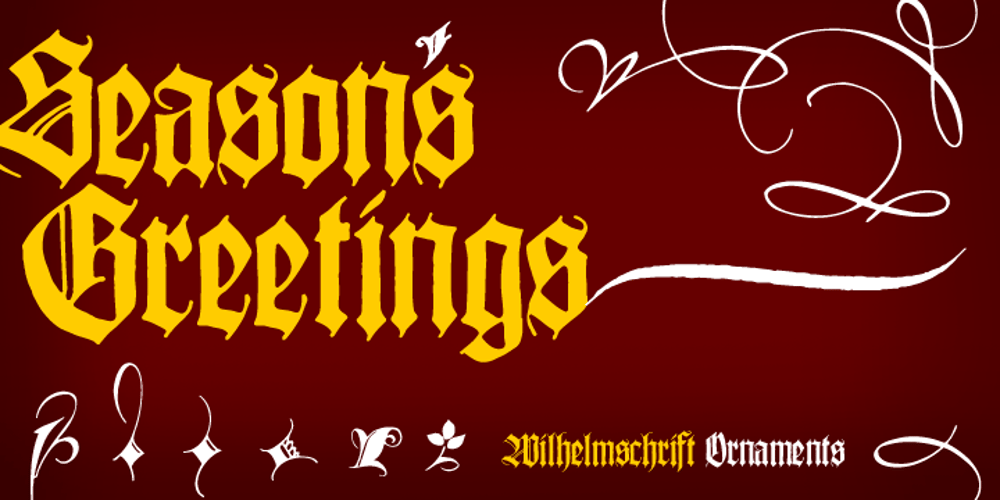
Wilhelmschrift Font Family was designed by Stephen Miggas, Rudolf Koch and published by Aerotype. Wilhelmschrift contains 3 styles and family package options. The 1927 Klingspor Foundry specimen book debuted one of Rudolf Koch’s greatest achievements, the original Wilhelm-Klingspor-Schrift, the source for the patinaed Wilhelmschrift. Companion Wilhelmschrift Ornaments features 36 flowers and other decorative elements also designed by Koch.